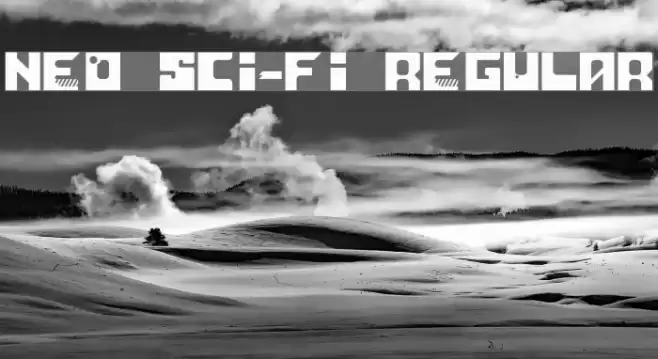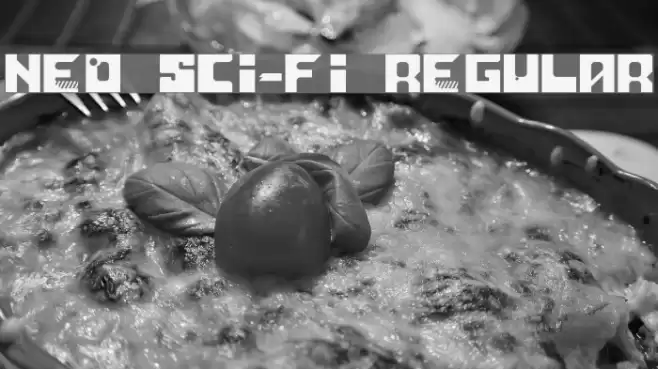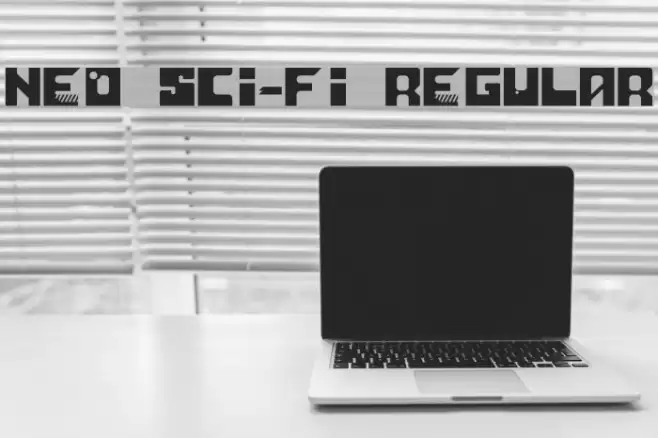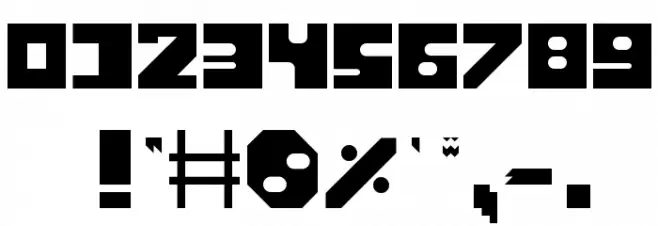
Neo Sci-Fi Regular Font
Neo Sci-Fi Regular Description
This font features a futuristic and geometric design, characterized by bold, blocky letterforms with unique cutouts and angular shapes. The uppercase and lowercase letters maintain a consistent style, with sharp edges and a mechanical feel. The numbers and special characters are designed to match the overall aesthetic, incorporating similar geometric elements. The font's distinct appearance makes it ideal for projects that require a modern and sci-fi look, offering a strong visual impact.
A futuristic, geometric font with bold, angular letterforms and unique cutouts from Uncategorized fonts.
- Proposed Projects: Ideal for sci-fi themed posters, video game titles, tech branding, and futuristic product packaging.